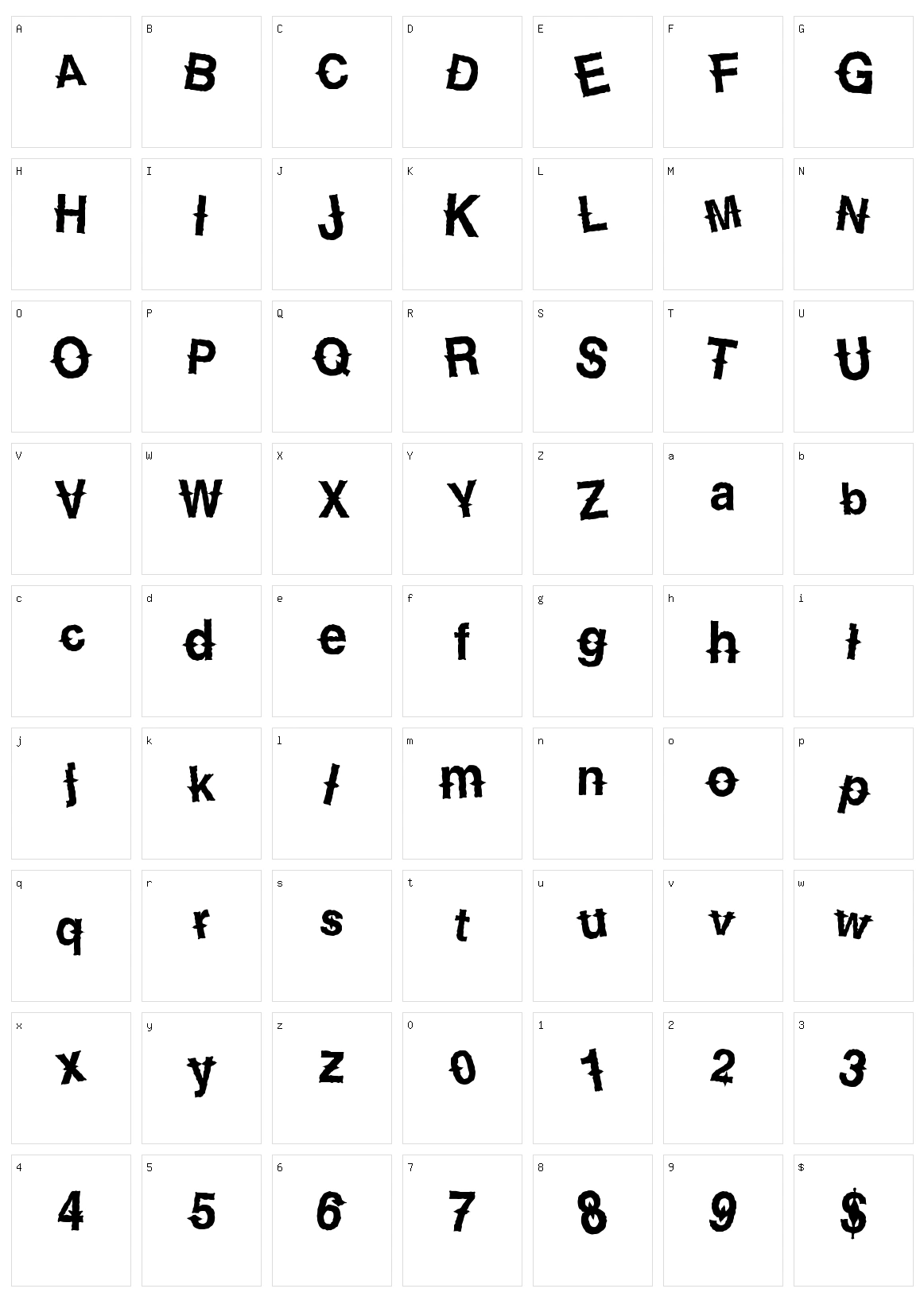
The free font Country Diamonds is carefully designed by Xerographer Fonts, showcasing a thoughtful balance of creativity and usability and falls under the Western font style. When you download the ZIP file, it contains only 27.63 KB of font files, making it lightweight and quick to download. Please review the license details below to understand permitted usage and distribution rights. If license information is not available, we recommend using this font for personal projects only or contacting the author directly for commercial usage permissions.